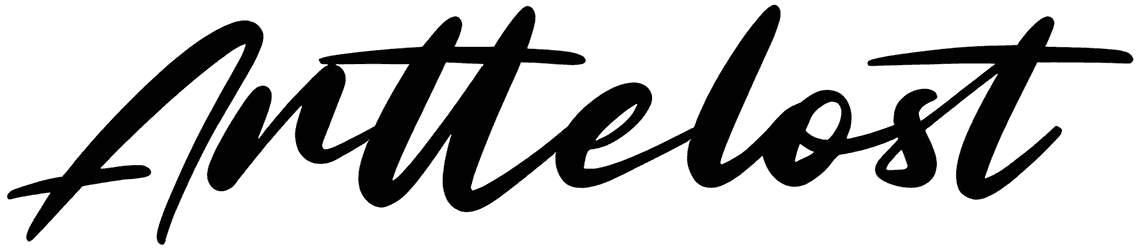
Arttelost Font
Arttelost is a handwritten font that can give your digital projects a unique feel and help you advance in your career. Even though this script font doesn’t have any numbers, it will still give your presentation a casual look.
This creative font is perfect for use in anything from billboards and advertisements to kid-friendly books. If you’re up for the challenge, you can finally put an end to tedious procedures.